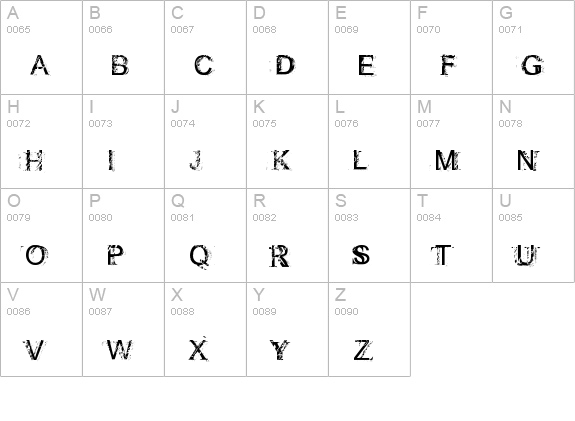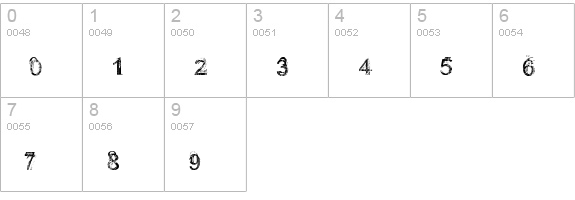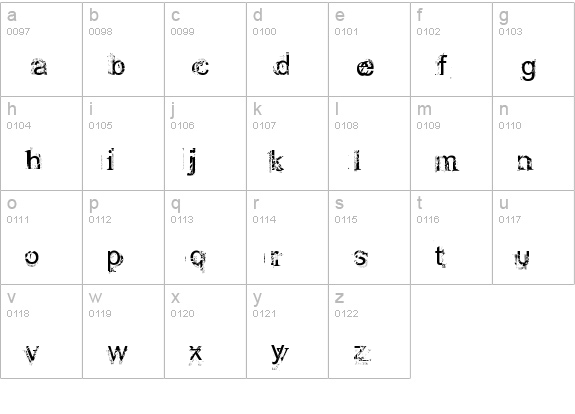
The Rough Linen font is a charming and rustic typeface inspired by the textural beauty of natural linen fabric. Its rough edges and hand-drawn appearance exude a sense of warmth and authenticity, making it perfect for projects that require a touch of artisanal flair. This versatile font is ideal for a wide range of design applications, from branding and packaging to invitations and signage. Best of all, the Rough Linen font is available for free download at FontsMarket.com. Embrace the beauty of imperfection and add a unique touch to your designs with this freely accessible font. Let your creativity flourish with the Rough Linen font and bring a touch of rustic elegance to your projects today!